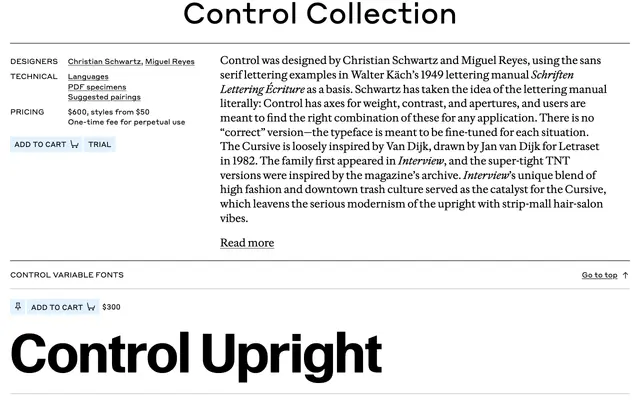
Control Collection
A parametric sans by Schwartz and Reyes built on Walter Kach's 1949 lettering manual, with axes for weight, contrast and apertures, plus a Letraset-flavoured Cursive.
A sans serif system by Christian Schwartz and Miguel Reyes based on the lettering examples in Walter Kach's 1949 manual Schriften Lettering Ecriture. Control treats the manual literally: rather than one correct form, the family offers axes for weight, contrast and apertures so designers tune the right combination per use. The Cursive draws loosely on Van Dijk's 1982 Letraset design, and the super-tight TNT cuts were developed for Interview magazine, where the family first appeared. Suits fashion, editorial and identity work that wants modernist rigour with room for high-fashion or downtown character.
Commercial Type describe Control as a sans serif built on Walter Käch's 1949 lettering manual, with parametric axes for weight, contrast and apertures. The Cursive is loosely inspired by Jan van Dijk's 1982 Letraset design, with super-tight TNT versions developed for Interview magazine.